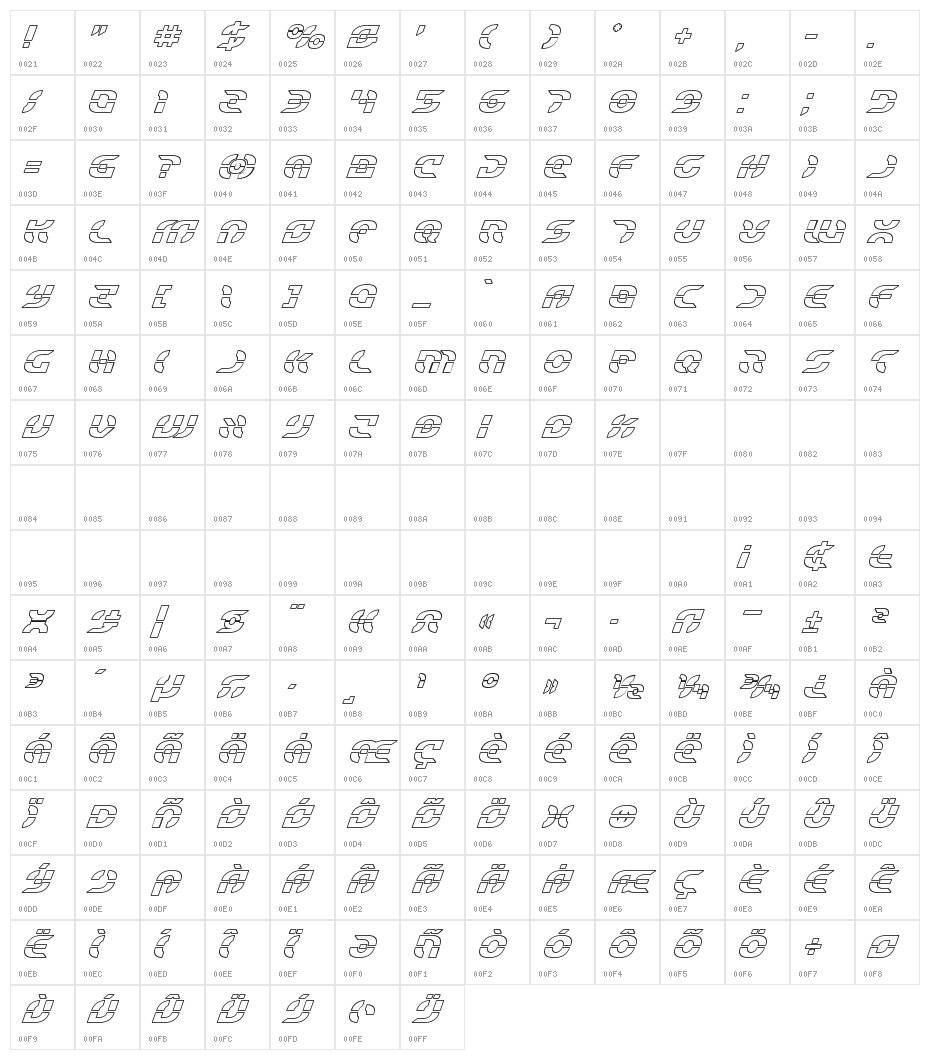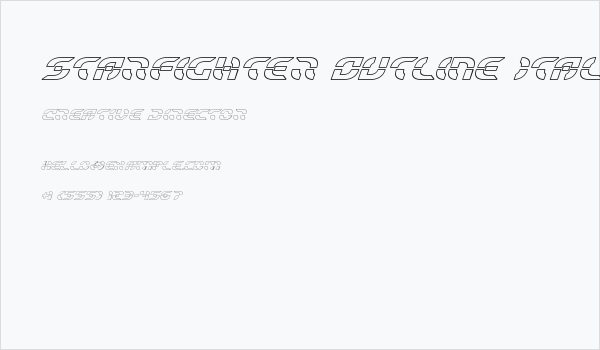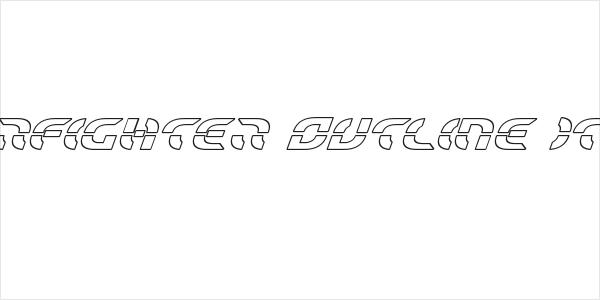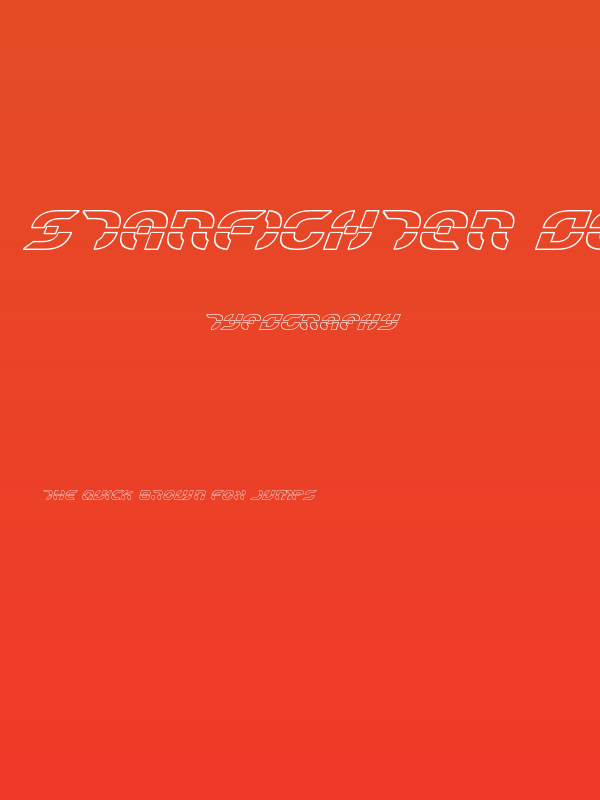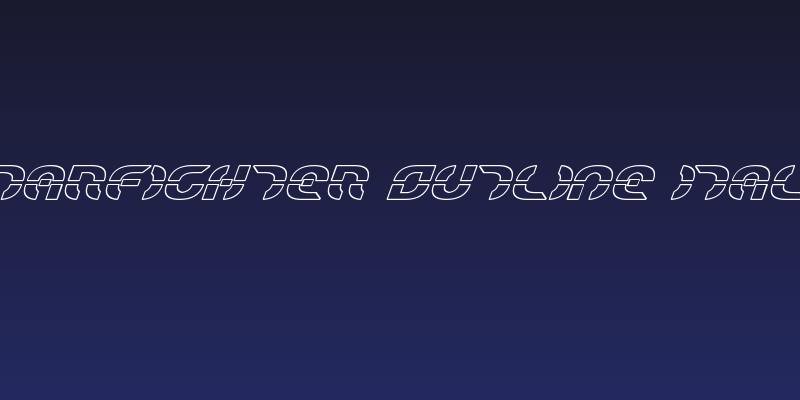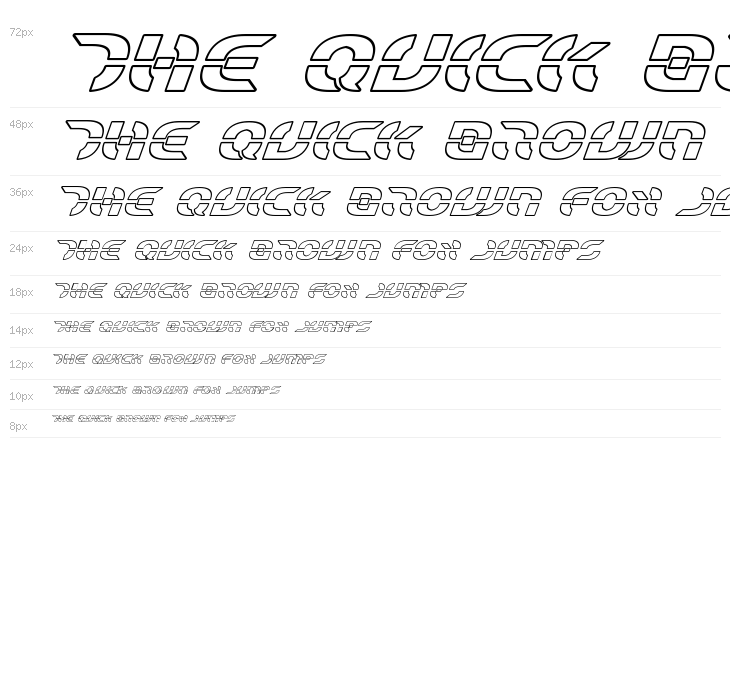
Starfighter Outline Italic Font
Starfighter Outline Italic Description
This font features a futuristic and dynamic outline design, characterized by its italicized and geometric letterforms. The characters are constructed with a distinct, angular style that gives a sense of motion and speed. The outline nature of the font adds a layer of complexity and modernity, making it stand out in any design. The uppercase and lowercase letters maintain a consistent style, with the numbers and special characters complementing the overall aesthetic. This font is ideal for projects that require a bold and innovative look, such as sci-fi themed designs or technology-related branding.
| Proposed Projects | Ideal for sci-fi themed designs, technology branding, video game titles, and futuristic posters. |